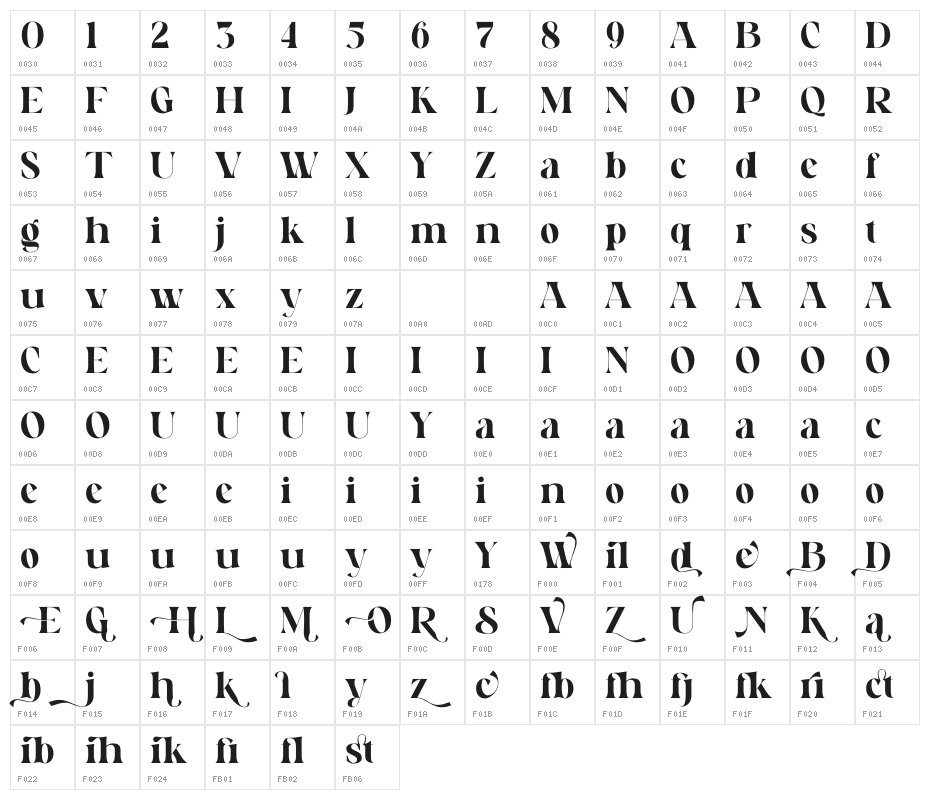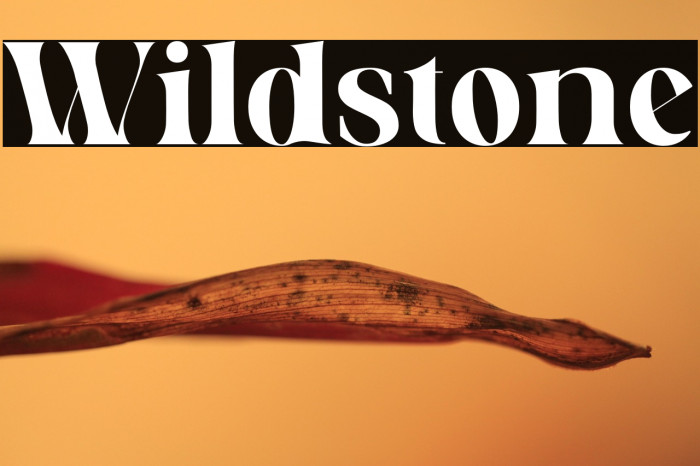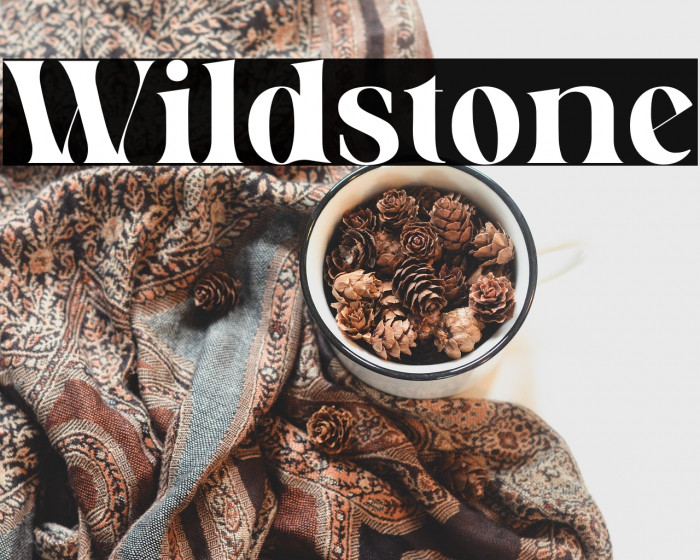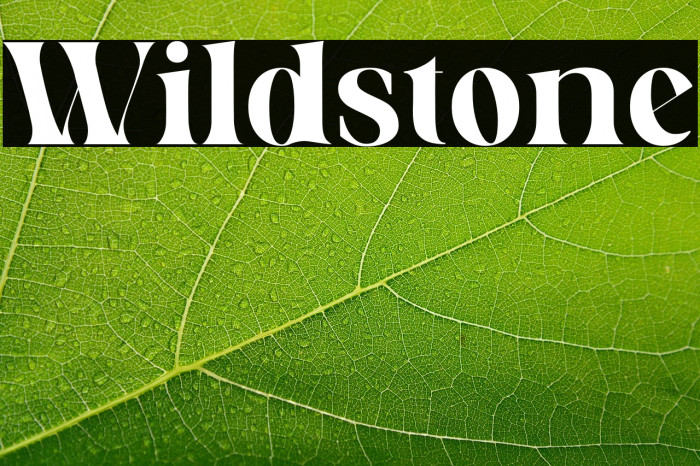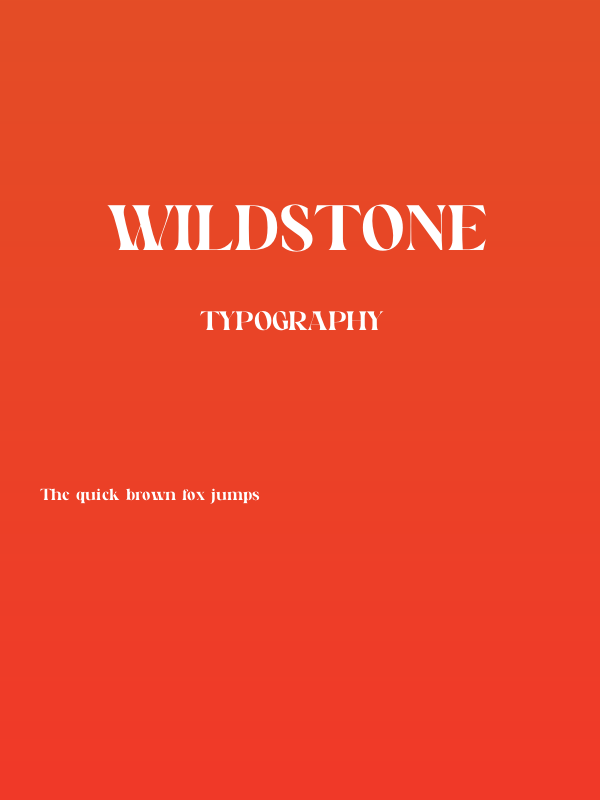
Wildstone Font
Wildstone Description
This font features a bold and dramatic serif style, characterized by its thick and thin stroke contrast. The uppercase letters exhibit a strong presence with sharp serifs and a slightly condensed form, giving a sense of elegance and authority. The lowercase letters maintain a consistent style, with rounded edges that soften the overall appearance. Numbers are designed with the same boldness, ensuring readability and impact. The special characters follow the same aesthetic, making them cohesive with the rest of the typeface. This font is ideal for creating striking headlines and titles, where a strong visual impact is desired.
| Proposed Projects | Ideal for branding, editorial design, posters, and any project requiring a strong typographic presence. |